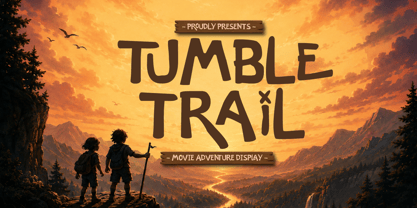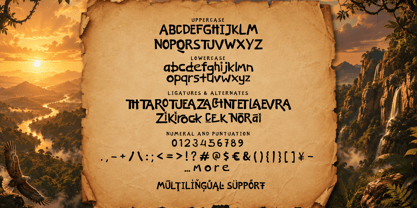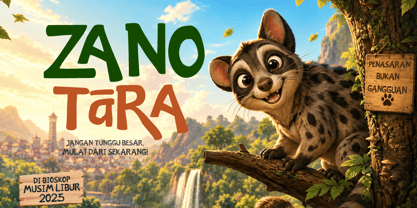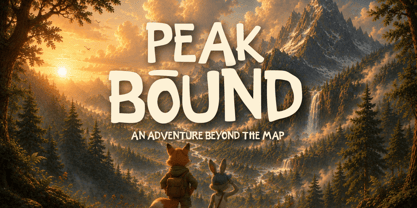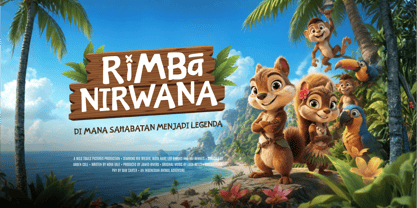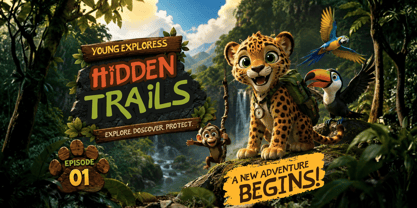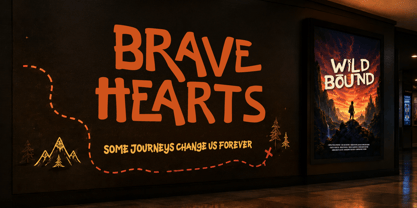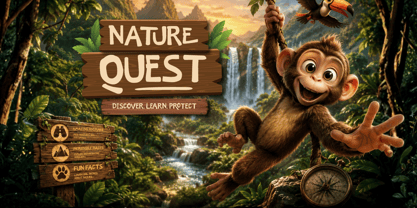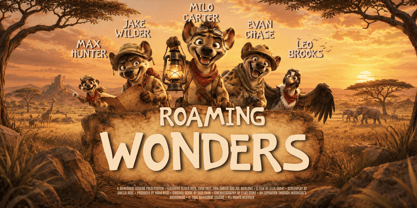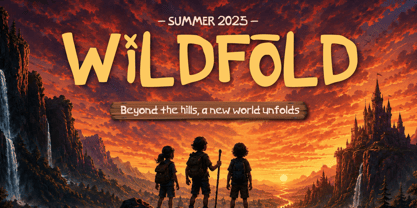
Tumble Trail – Movie Adventure Display is a playful handwritten display font designed to bring adventure, exploration, and energetic storytelling to life. Its organic, bold, and expressive letterforms create a fun, friendly, and cinematic personality, making it ideal for eye-catching headlines and memorable visual identities.
This font is perfect for children's adventure, travel documentaries, nature educational content, big screen promotion, animated movies, kids entertainment, adventure posters, outdoor campaigns, and storytelling projects. Tumble Trail works beautifully for movie titles, film posters, trailers, branding, children's book covers, merchandise, social media content, YouTube thumbnails, and promotional campaigns.
With its playful character and strong visual impact, Tumble Trail creates a fun, adventurous, youthful, and memorable look. A great choice for designers, film studios, children's brands, content creators, and creative teams looking for a unique display font that captures the spirit of exploration and adventure.
- All glyphs and Feature
- Multilingual Support: Fully supports 85+ languages, including: